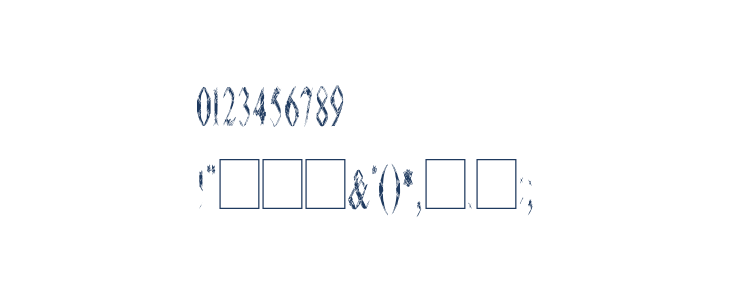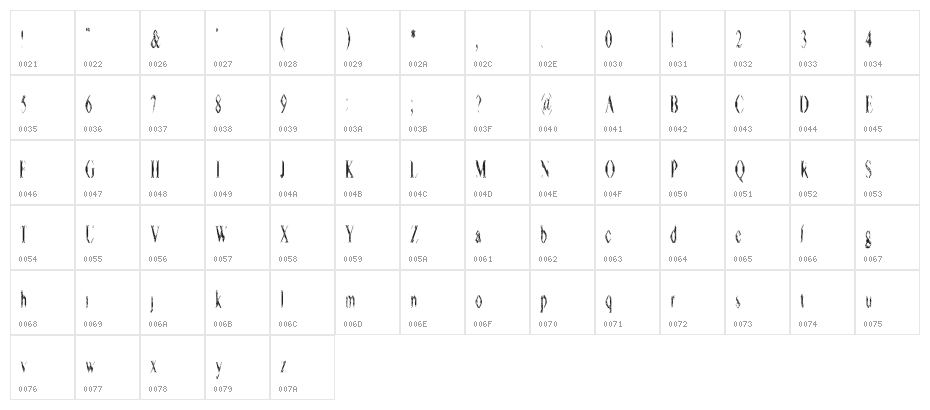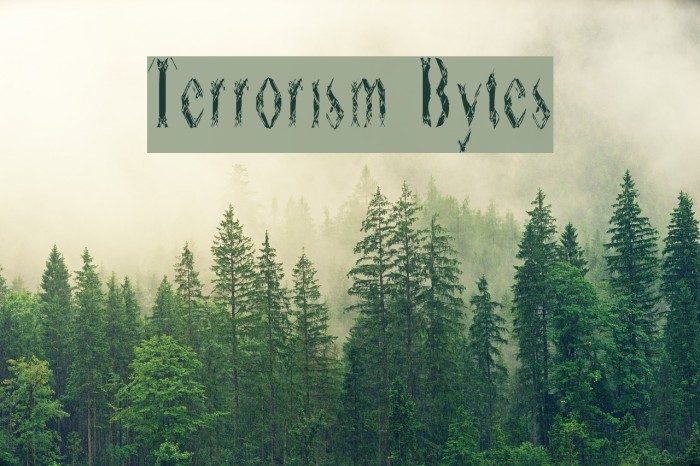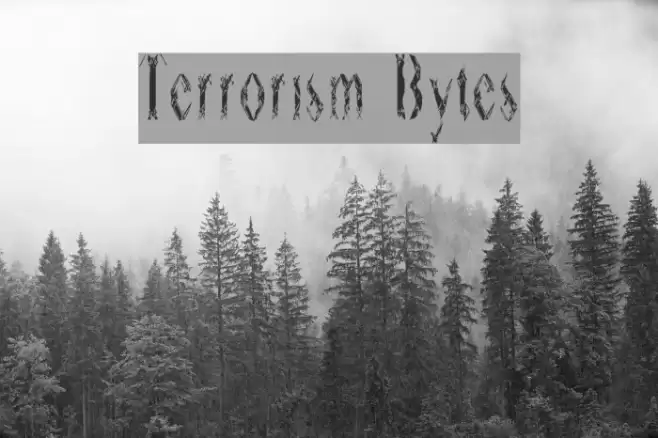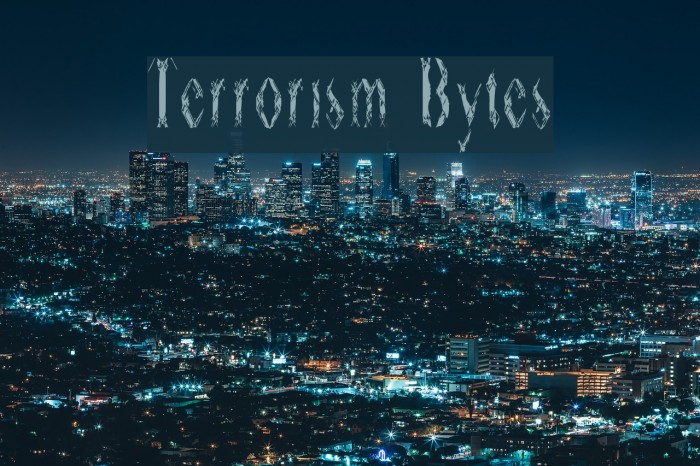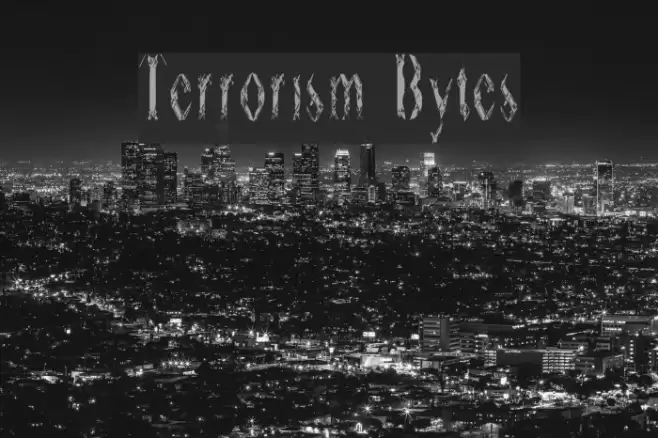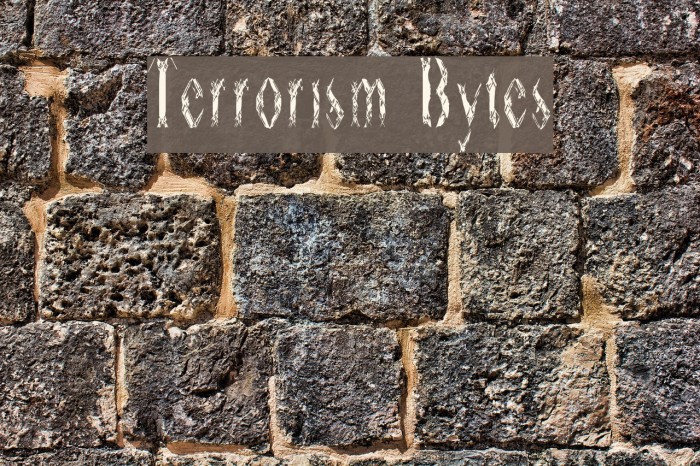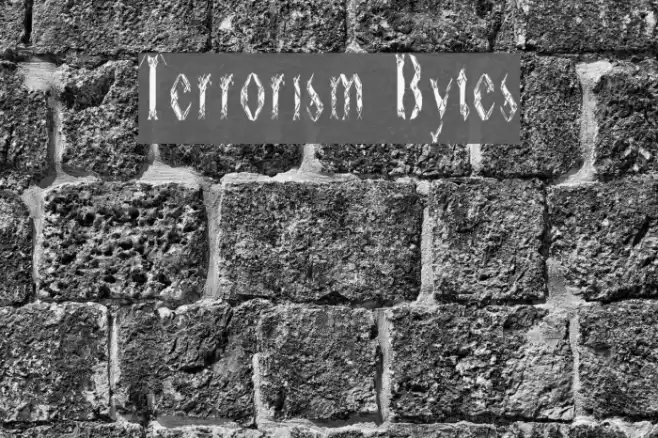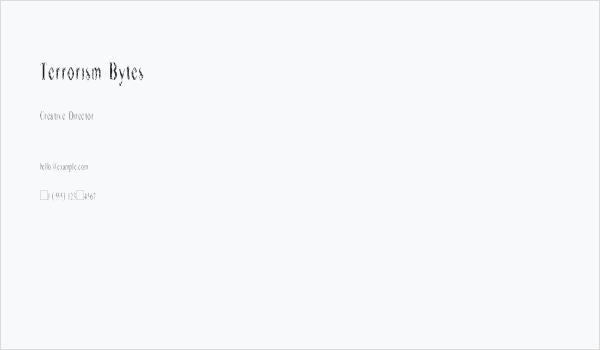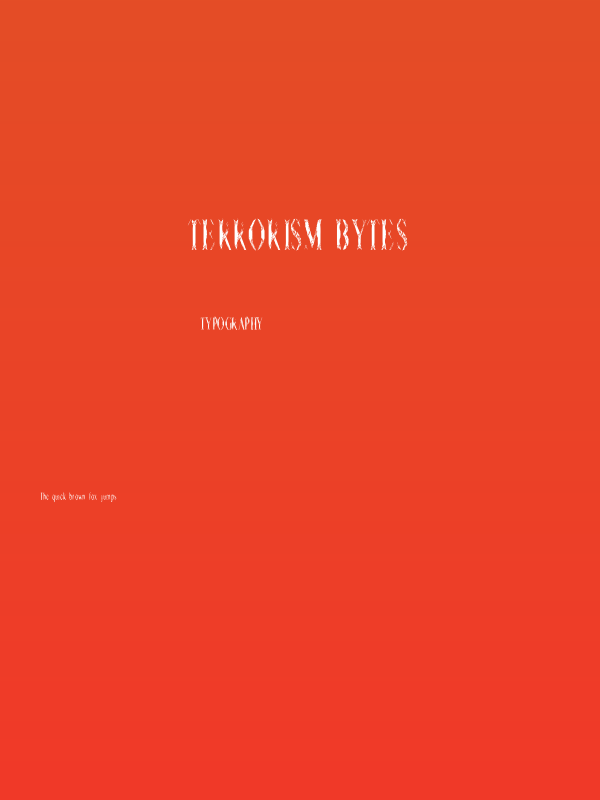
Terrorism Bytes Font
Terrorism Bytes Description
This font features a highly decorative and distressed style, characterized by its textured and rough appearance. The uppercase and lowercase letters exhibit a unique, edgy design with irregular strokes and a hand-drawn feel. The numerals and special characters maintain this aesthetic, adding to the font's overall gritty and bold look. The font's distinctive style makes it stand out, with each character appearing as if it has been scratched or etched, giving it a raw and dynamic energy.
| Proposed Projects | Ideal for projects that require a bold, eye-catching design such as posters, album covers, or branding for edgy or alternative products. |